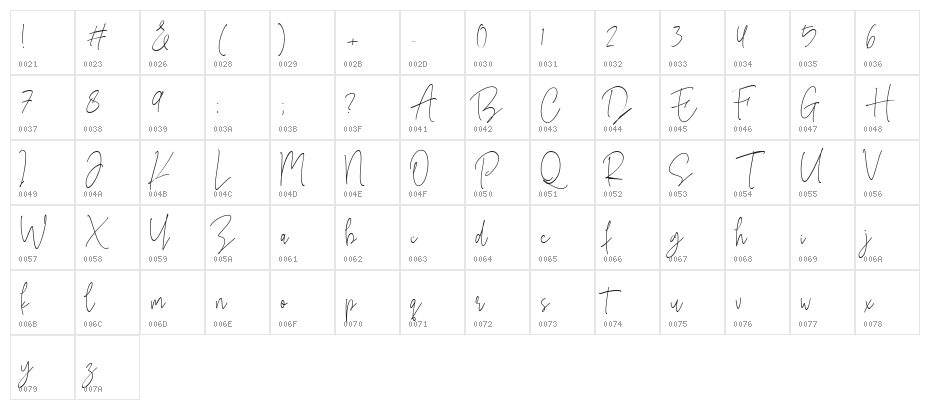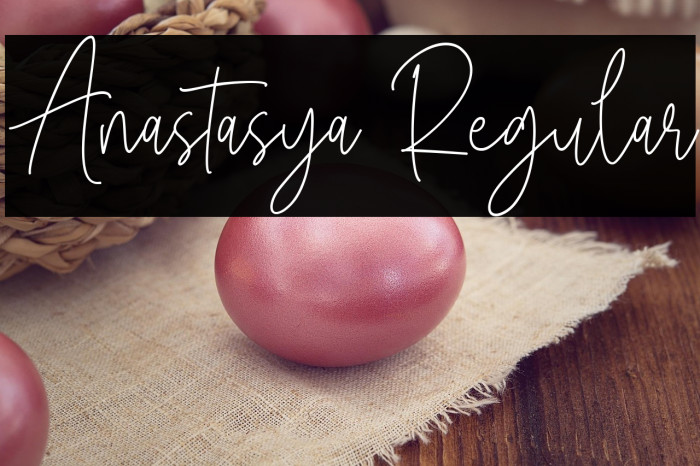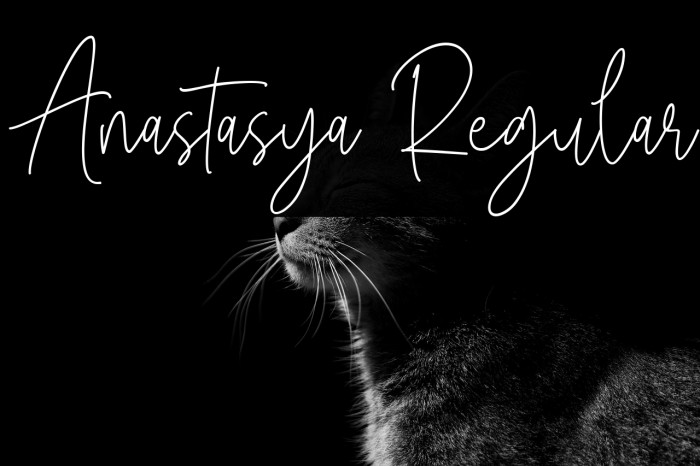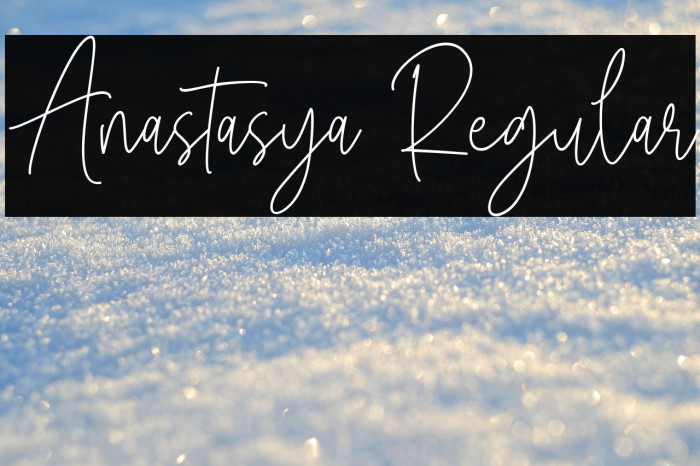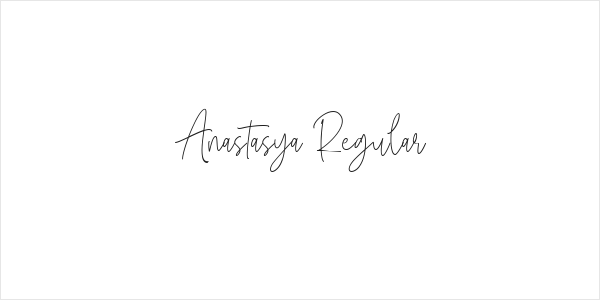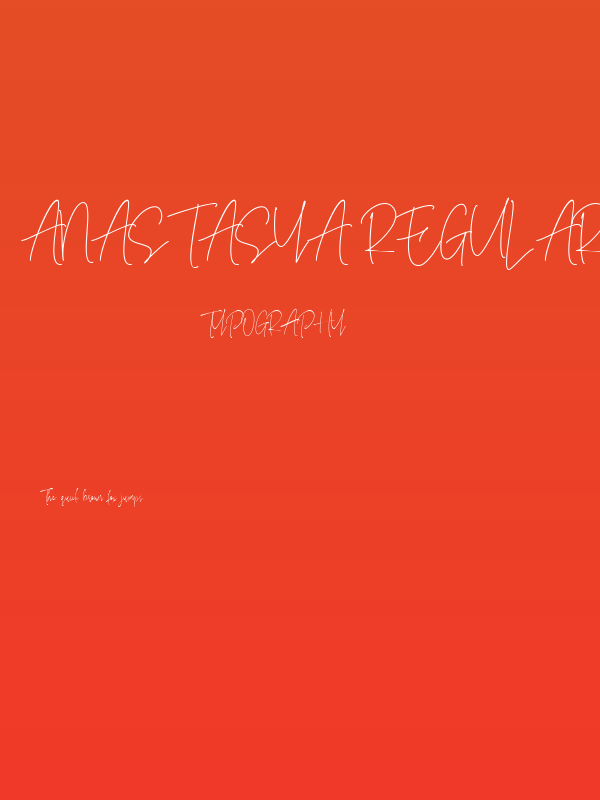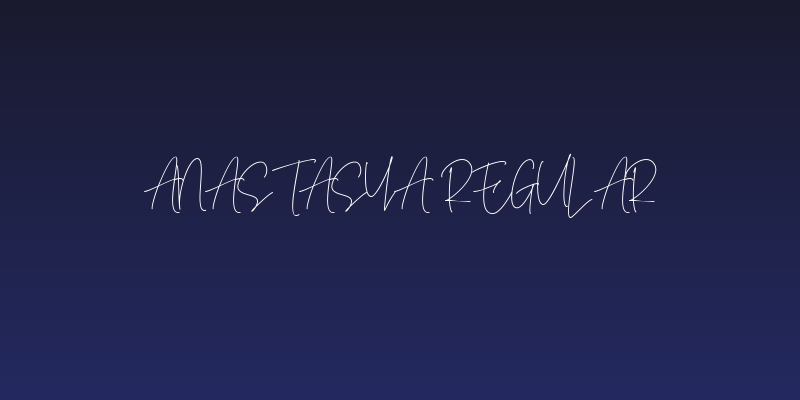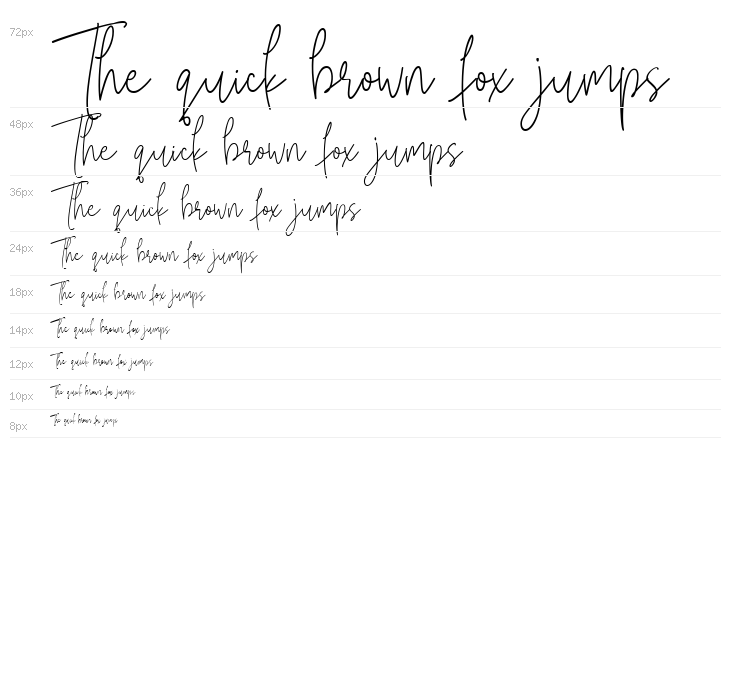
Anastasya Regular Font
Anastasya Regular Description
This font exudes a casual yet elegant handwritten style, characterized by its flowing, cursive script. The letters are connected with smooth, sweeping lines that give it a natural and personal touch. The strokes are thin and consistent, offering a delicate appearance that is both stylish and readable. The uppercase letters are slightly more elaborate, while the lowercase letters maintain a simple, clean look. The numbers and special characters are crafted to match the overall aesthetic, ensuring a cohesive design throughout.
| Overall Style | Elegant, Handwritten |
| Proposed Projects | Ideal for wedding invitations, personal branding, greeting cards, and elegant stationery. |